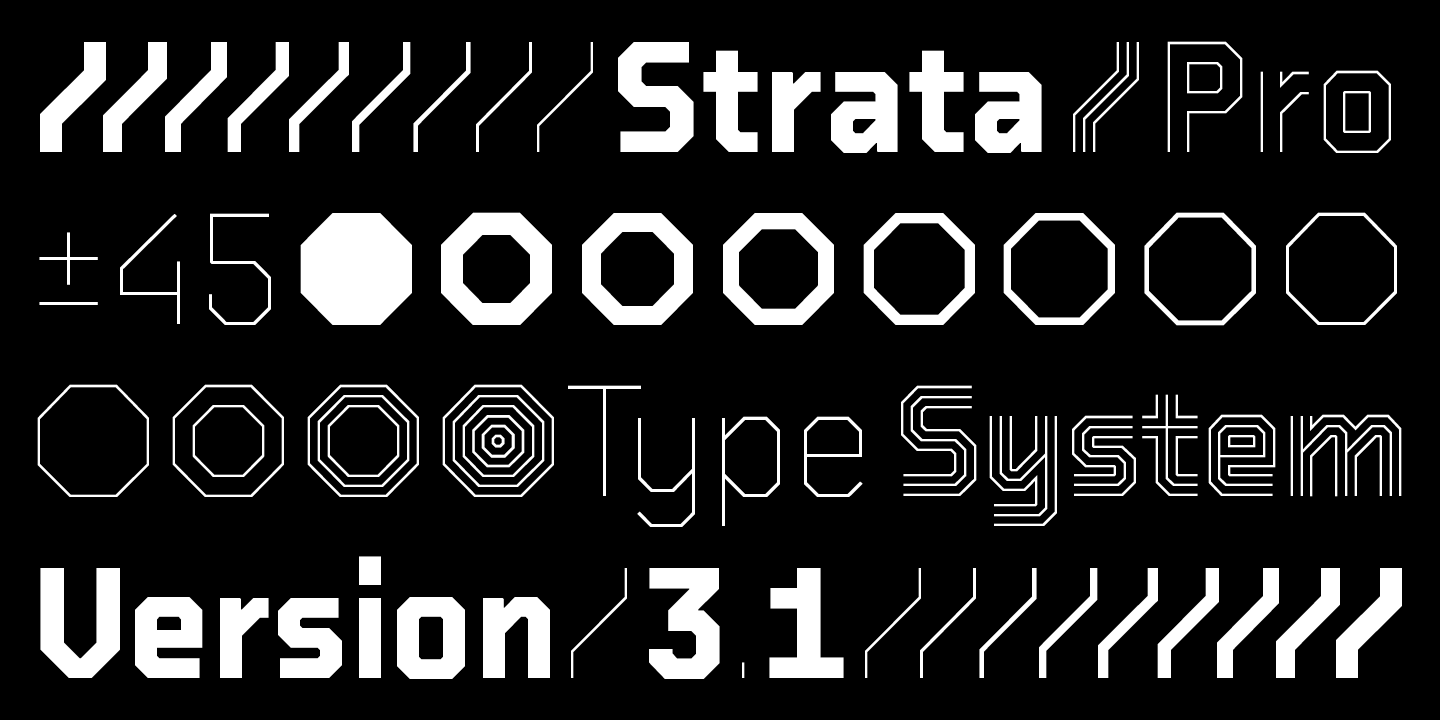
Looking to equip your designs with a typeface that’s both structurally sound and aesthetically refined? BB Strata (Pro) Font Free Download offers an excellent opportunity to explore a modern sans-serif. It's crucial to remember, however, that while a BB Strata (Pro) Font Free Download might be available for personal and testing purposes, a commercial license is strictly required for any professional or revenue-generating projects. This ensures legal compliance and provides essential support to the talented font designers.
The BB Strata (Pro) Font is exceptionally versatile and shines in a wide array of applications where precision, clarity, and a minimalist aesthetic are paramount. Its often geometric or neo-grotesque design with clear, open counters makes it an ideal choice for corporate branding, sophisticated website interfaces, and professional presentations. It excels as body text in annual reports, technical documentation, and digital publications, ensuring effortless readability across diverse platforms. Furthermore, consider BB Strata (Pro) Font for UI/UX design, app development, and extensive editorial layouts where a consistent, clean, and highly functional typeface is needed. Its robust character also makes it perfect for signage, information design, and large-scale displays.
What makes the BB Strata (Pro) Font so exciting is its remarkable blend of clean simplicity and professional versatility. It often features neutral yet distinct letterforms that are designed for optimal readability at various sizes, making it a true workhorse font. This characteristic allows it to communicate a sense of authority, precision, and modernity, ensuring your message is communicated with absolute clarity and impact. It’s a font that doesn't just look good; it performs exceptionally, providing a reliable and elegant foundation for any serious design project. Its understated sophistication ensures your work will appear polished, trustworthy, and highly effective.
The BB Strata (Pro) Font family typically boasts a comprehensive range of weights, making it incredibly adaptable for complex typographic hierarchies. You'll often find an extensive selection, from Hairline and Thin to Light, Regular, Medium, SemiBold, Bold, ExtraBold, and Black, usually accompanied by corresponding italic styles. This broad spectrum of weights, coupled with potential condensed or extended versions, provides designers with immense flexibility to create visually rich and harmonized layouts while maintaining a cohesive and professional brand identity across all touchpoints.